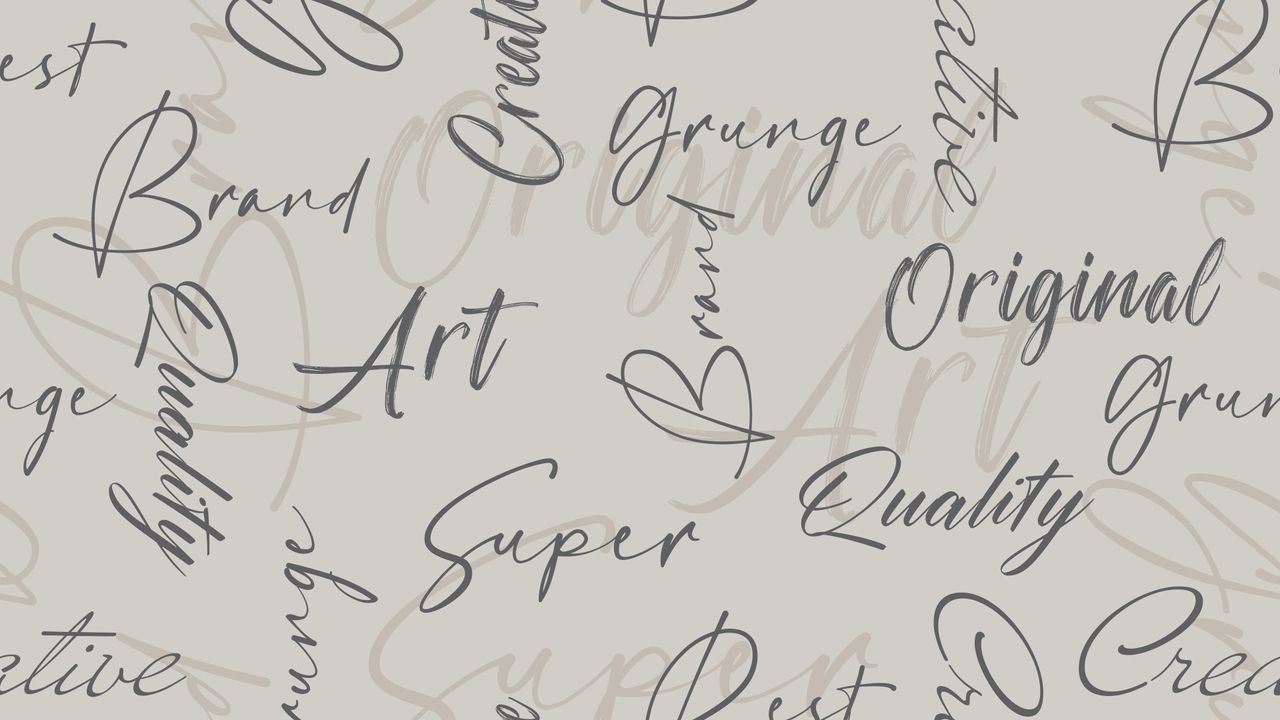
With plenty of free script fonts available online, we can sometimes feel spoilt for choice. Adding cursive fonts to your projects can bring a unique personal touch, so to help you find the perfect typographic companion, we've compiled this handy list of the best free script fonts.
Whether you're designing a personal wedding invite or a large-scale client project, there's likely a free script font perfect for you, whether you're after bold contemporary brush strokes or delicate, handwritten calligraphy. Make sure to check out our guide to the best font pairings to help balance your design, and if you're looking for a more bespoke look, our best handwriting fonts guide is here to help.